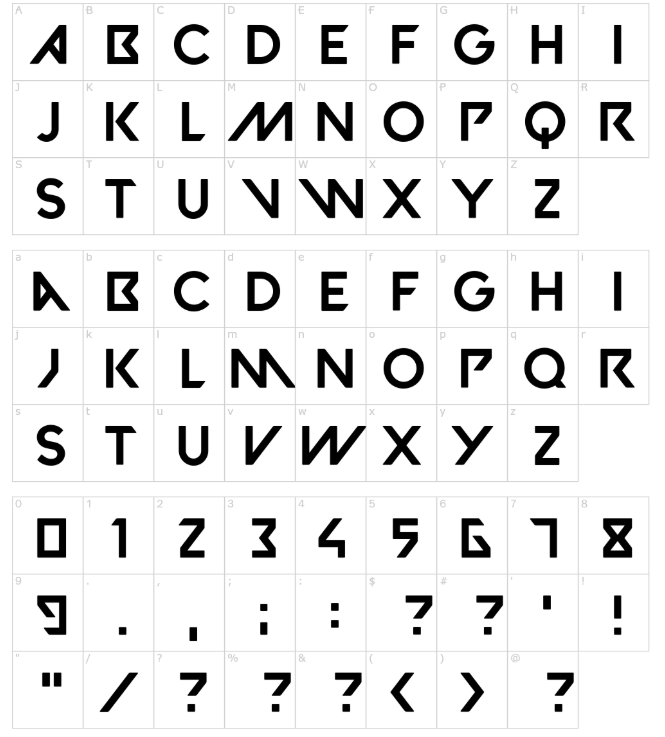
Valorant Font: Introduction
The Valorant font presents itself as an attractive and instantly recognizable design through its sleek, sharp edges and minimalistic style that attracts gamers and designers pursuing an adventurous typeface. Players instantly recognize the Valorant font due to its close connection with Riot Games’ tactical first-person shooter, Valorant. The game obtains its competitive and futuristic atmosphere through this font, strengthening its core strategic gameplay mechanics.
What is the Valorant Font?
The typeface in Valorant’s logo and promotional elements features a bespoke design that aligns with either “Valorant” by Bryan T or the free font family “Rajdhani”. Riot Games designed an extraordinary typography approach that fits the game’s futuristic, high-energy visual identity through a combination of elegant geometric shapes and angular elements.
Key Features of the Valorant Font
The Valorant font stands out due to several distinct characteristics:
- Futuristic and Minimalist Design
The font features clean, geometric letterforms with sharp angles, contributing to a sleek and modern look. - Bold and High-Impact
The thick, bold structure makes it ideal for headlines, logos, and branding materials. - Sharp and Angular Edges
The letterforms have precise, pointed edges, enhancing their dynamic and aggressive feel. - All-Caps Format
The font is typically displayed in all caps, reinforcing its authoritative and competitive vibe. - Slightly Condensed Spacing
The tight letter-spacing helps create a compact and sleek appearance.
These attributes make it a perfect fit for projects that require a futuristic, high-tech, or esports-inspired aesthetic.
Alternatives to Valorant Font
- A widely available free font that closely resembles the Valorant aesthetic.
- Features a sleek, modern, and slightly condensed letterform.
- A futuristic font with bold and sharp edges.
- Great for esports branding and gaming content creation.
- A geometric, high-tech typeface that works well for sci-fi and gaming themes.
- A condensed, sharp-edged font used in various tech and esports branding materials.
Applications of the Valorant Font
Due to its bold and modern style, the Valorant font is widely used in various creative fields, especially within the gaming and design communities. Below are some of its typical applications:
- Video Game Branding & Graphics
Since the font is inherently associated with Valorant, it is frequently used by content creators, streamers, and gaming communities to produce banners, overlays, and thumbnails that align with the game’s branding.
- Esports & Competitive Gaming Promotions
Professional esports teams and tournament organizers often utilize fonts similar to Valorant’s for promotional graphics, posters, and merchandise to capture the game’s intense and competitive nature.
- Logo & Branding Design
Companies looking for a modern and high-tech look often choose Valorant-inspired fonts for their branding materials, especially in industries related to gaming, technology, and digital marketing.
- Social Media & Content Creation
YouTube thumbnails, Twitch overlays, and gaming-related social media posts often feature Valorant-style typography to maintain a cohesive and visually striking presence.
- Merchandise & Apparel Design
Fonts inspired by Valorant are commonly used in custom gaming apparel, hoodies, mousepads, and posters designed for fans of the game.
Conclusion
The Valorant font represents more than typography because it delivers a complete futuristic aesthetic that incorporates high-tech elements and competitive design elements. Creative opportunities for designers and gamers exist through the Valorant font together with its multiple available alternatives, which fit diverse graphic needs.
The knowledge of its functional aspects enables you to use this strong typographic element for achieving a modern, cutting-edge design in your projects. Users seeking free fonts should begin with Rajdhani, yet Valorant by Bryan T provides an excellent fan-made option for reproducing the game’s unique style.